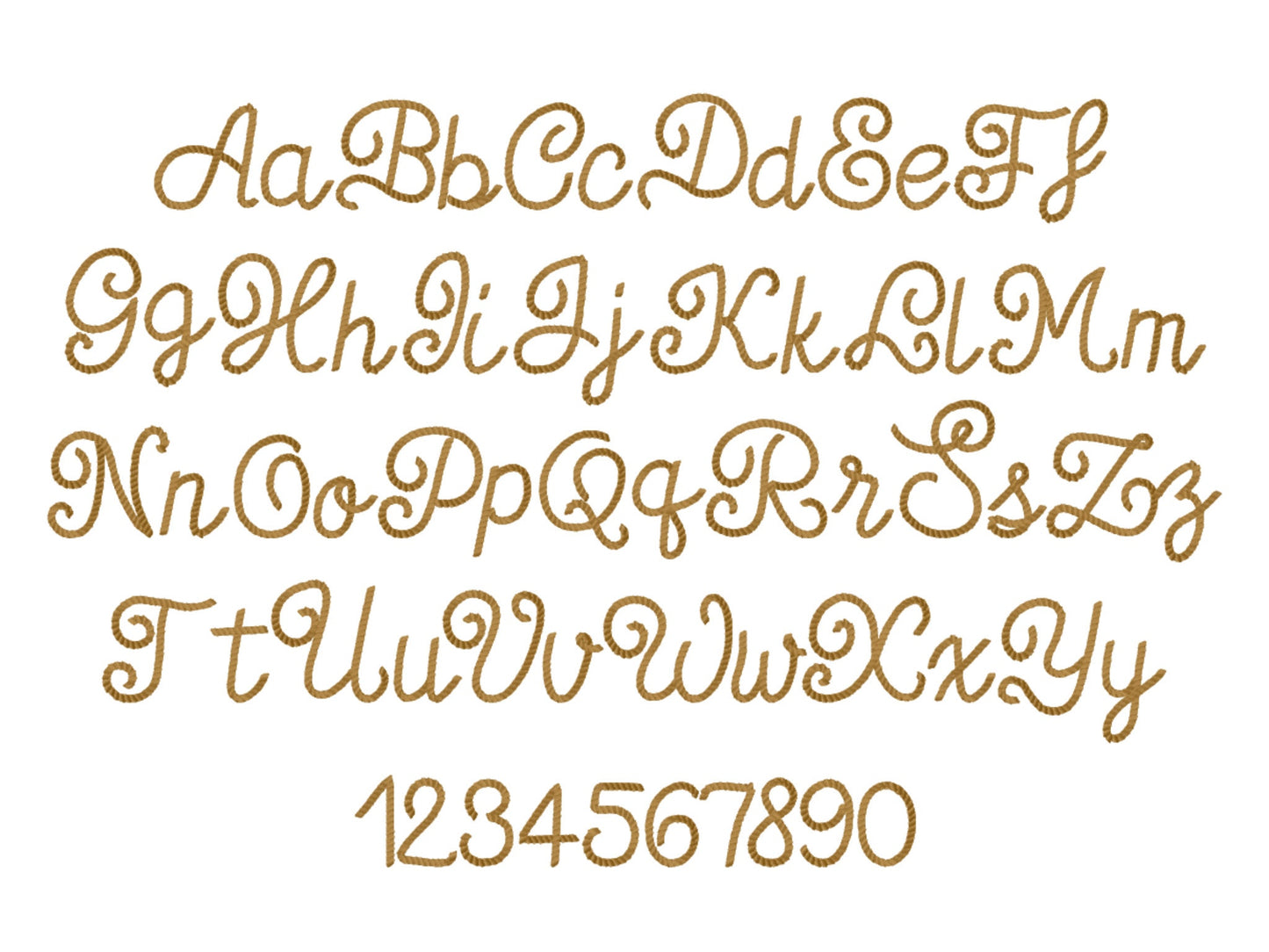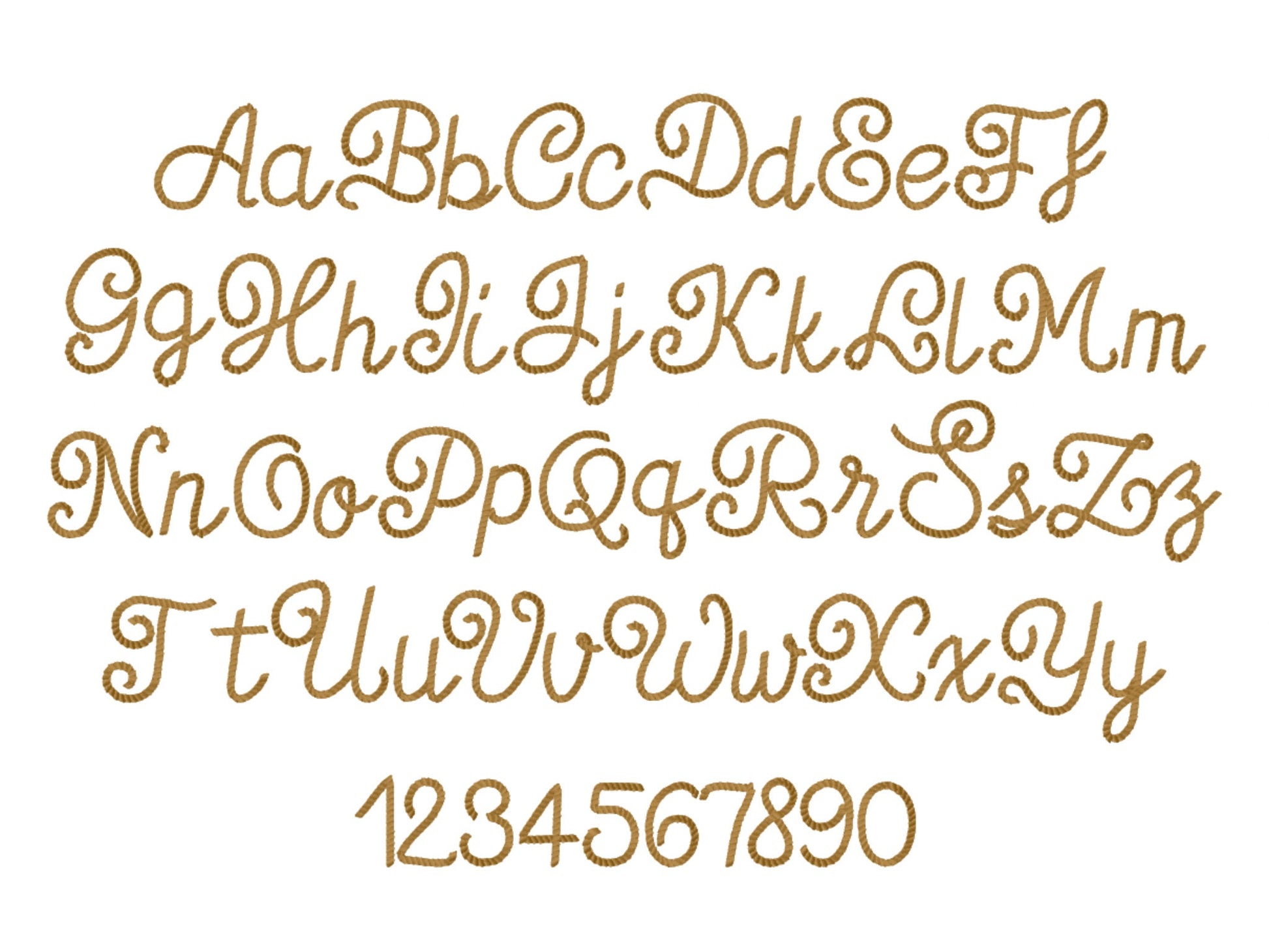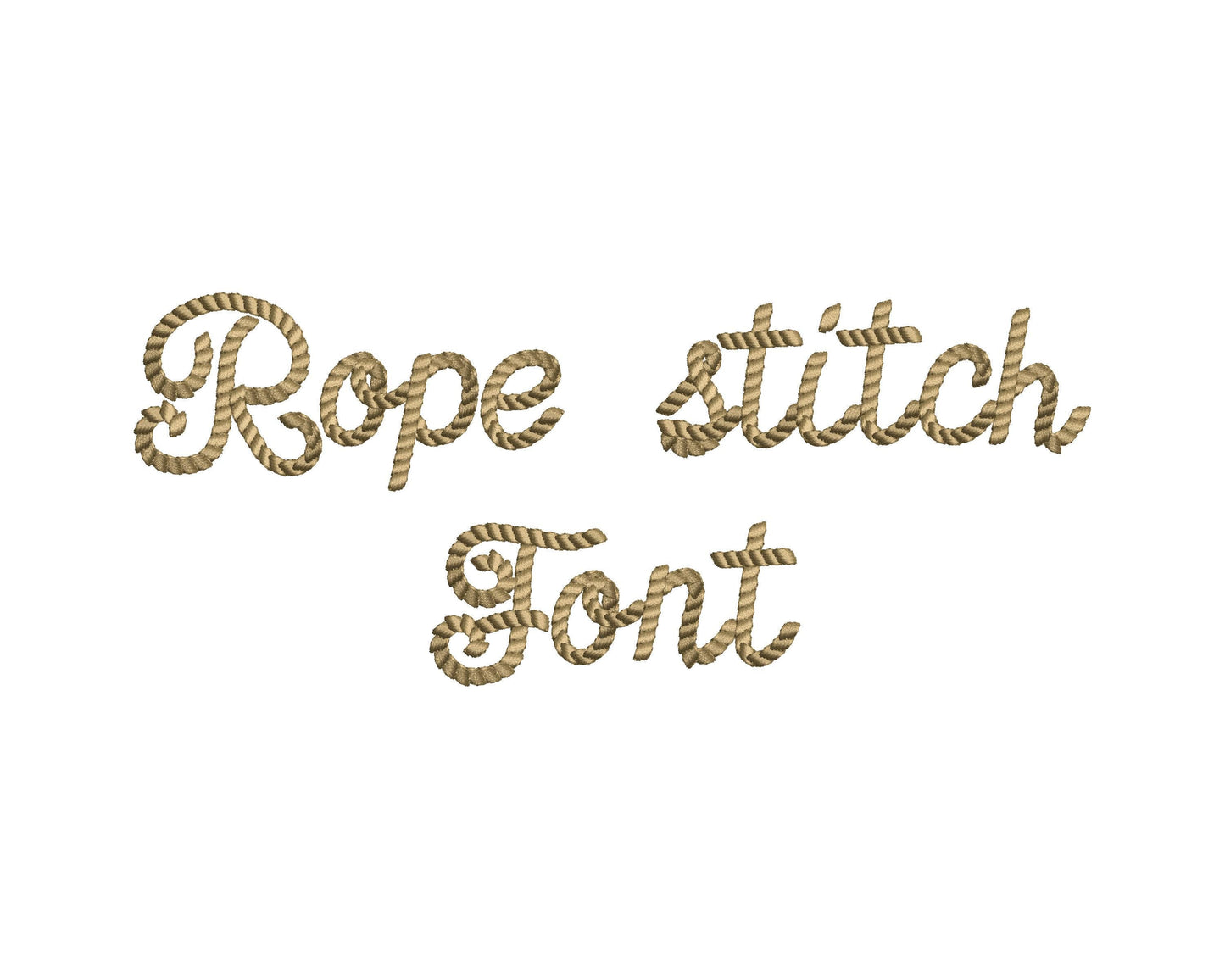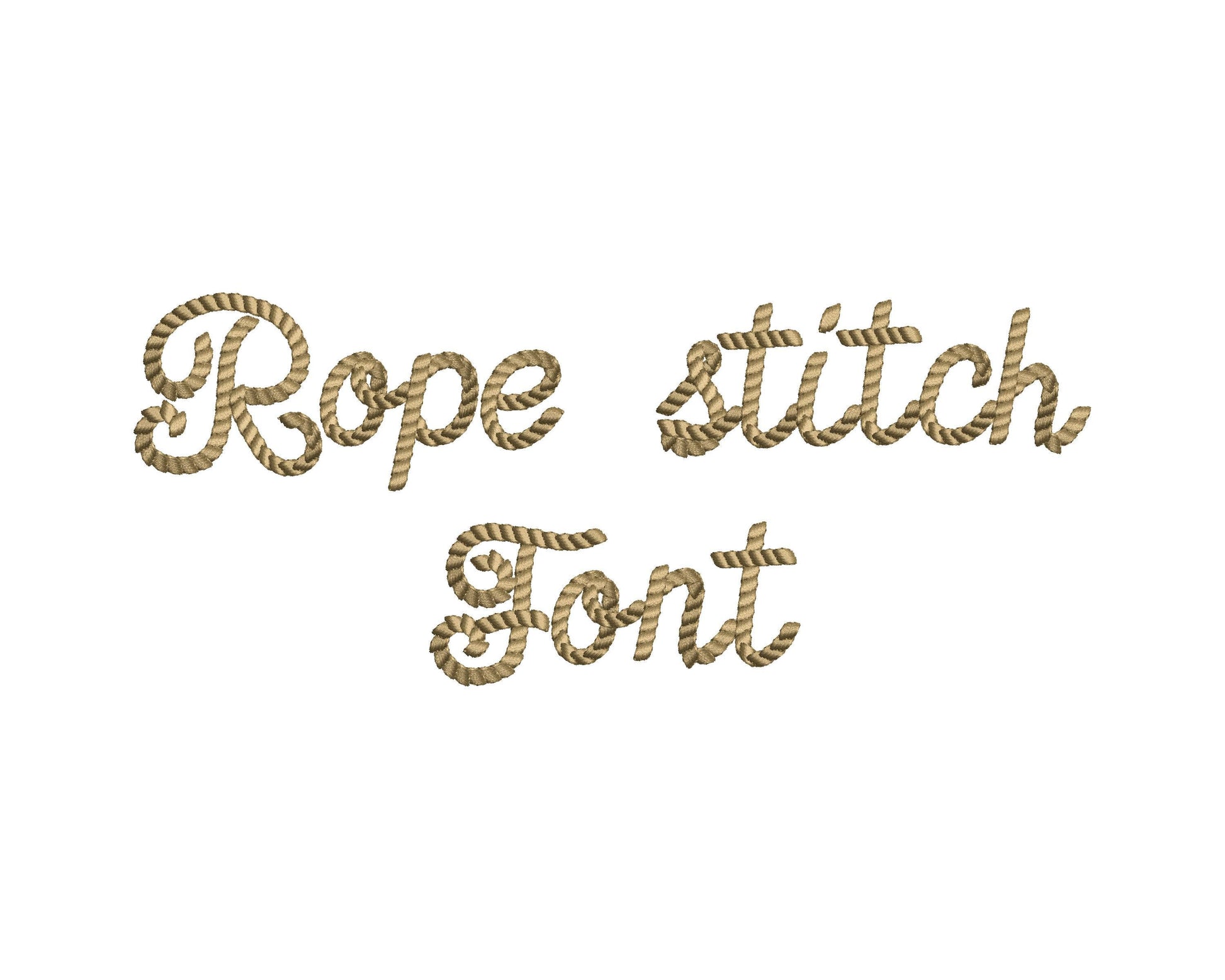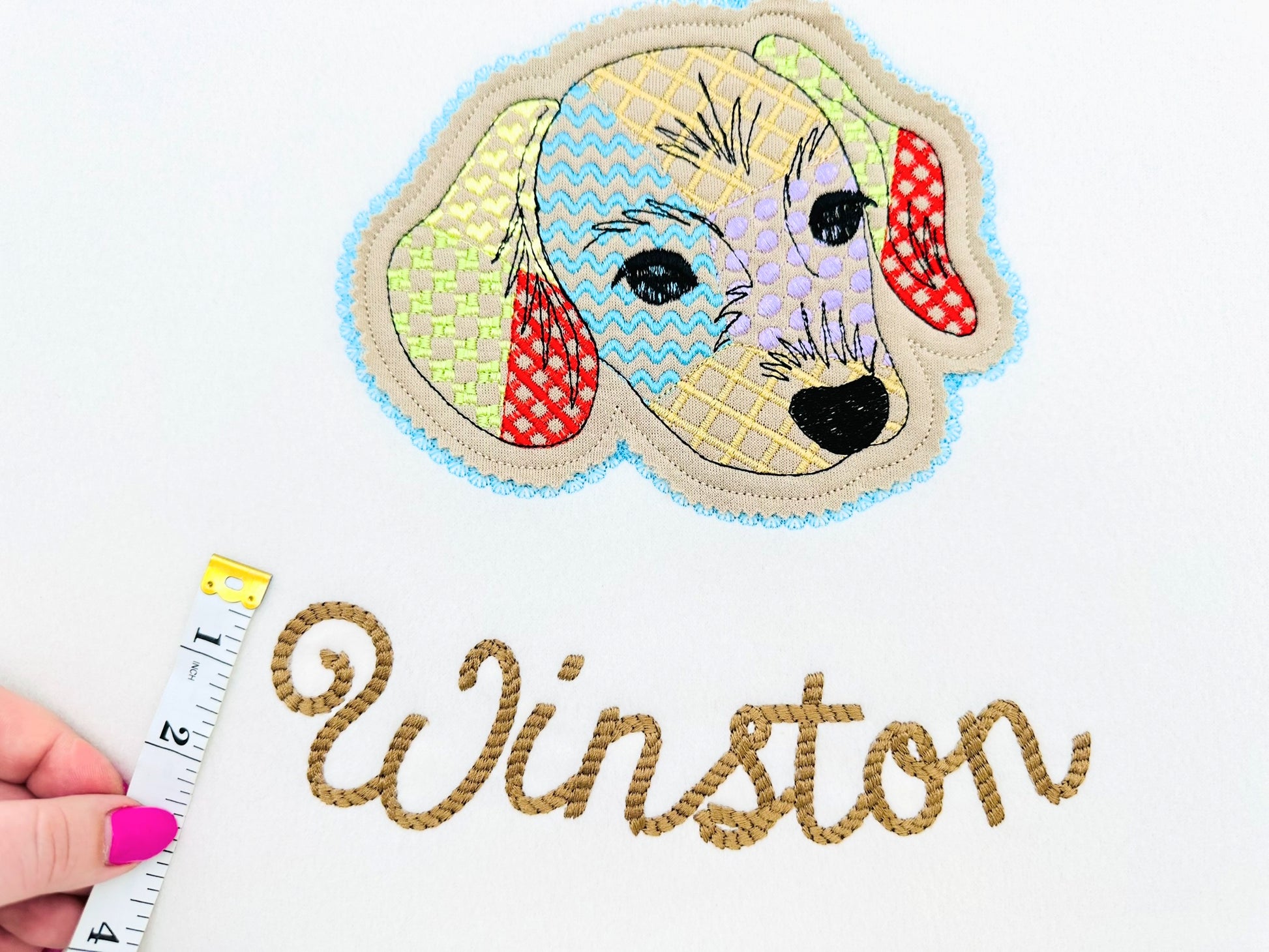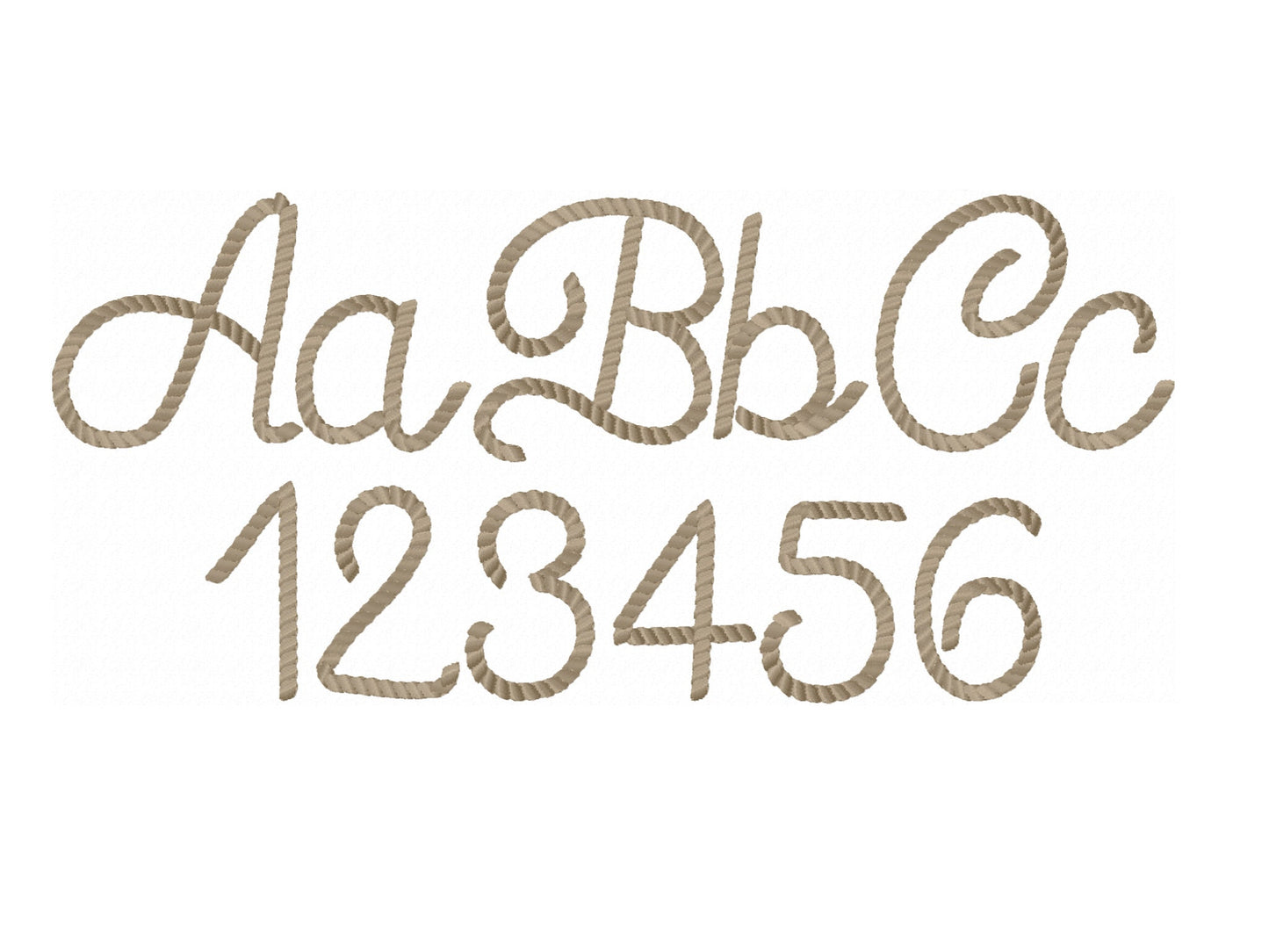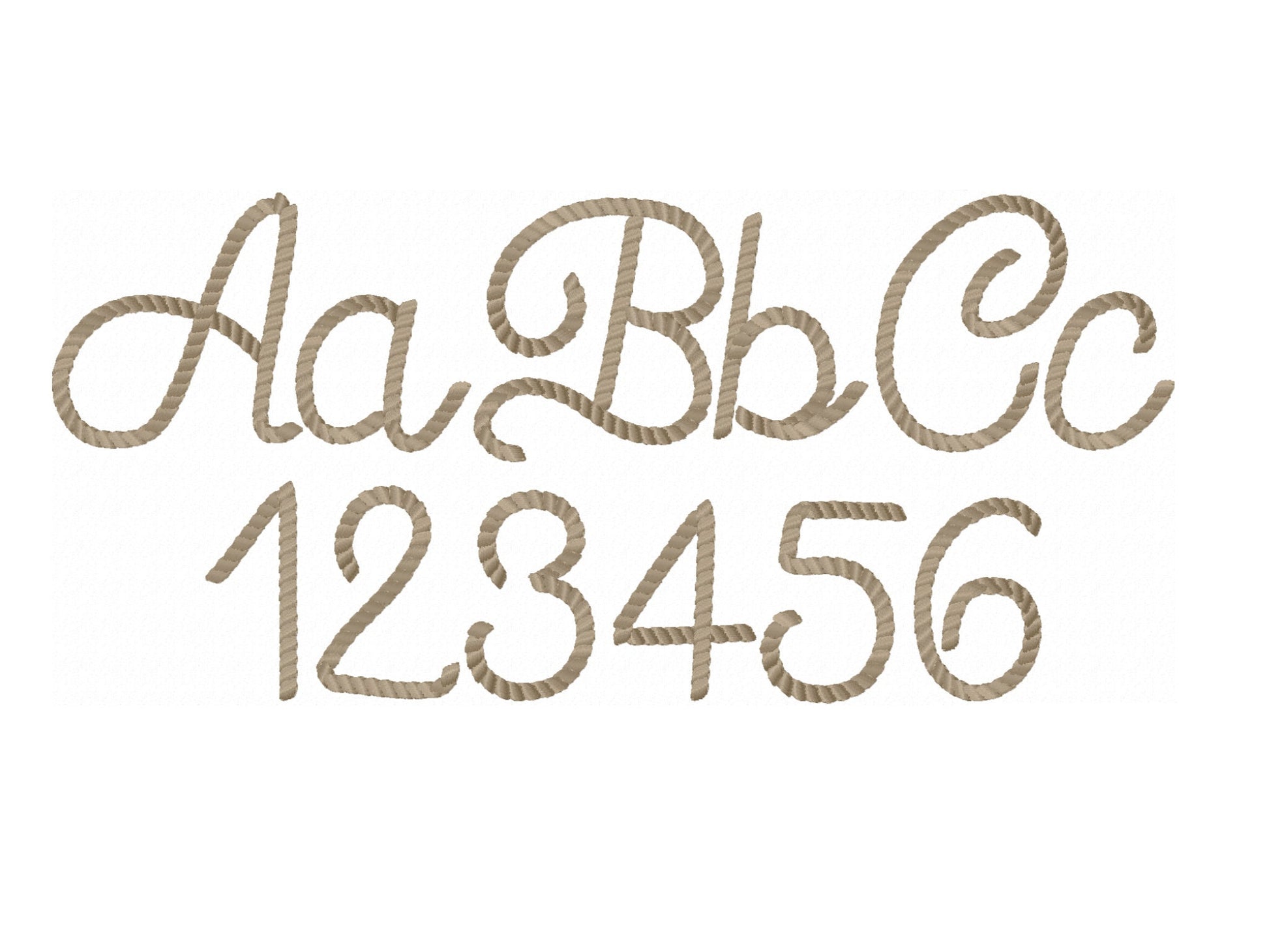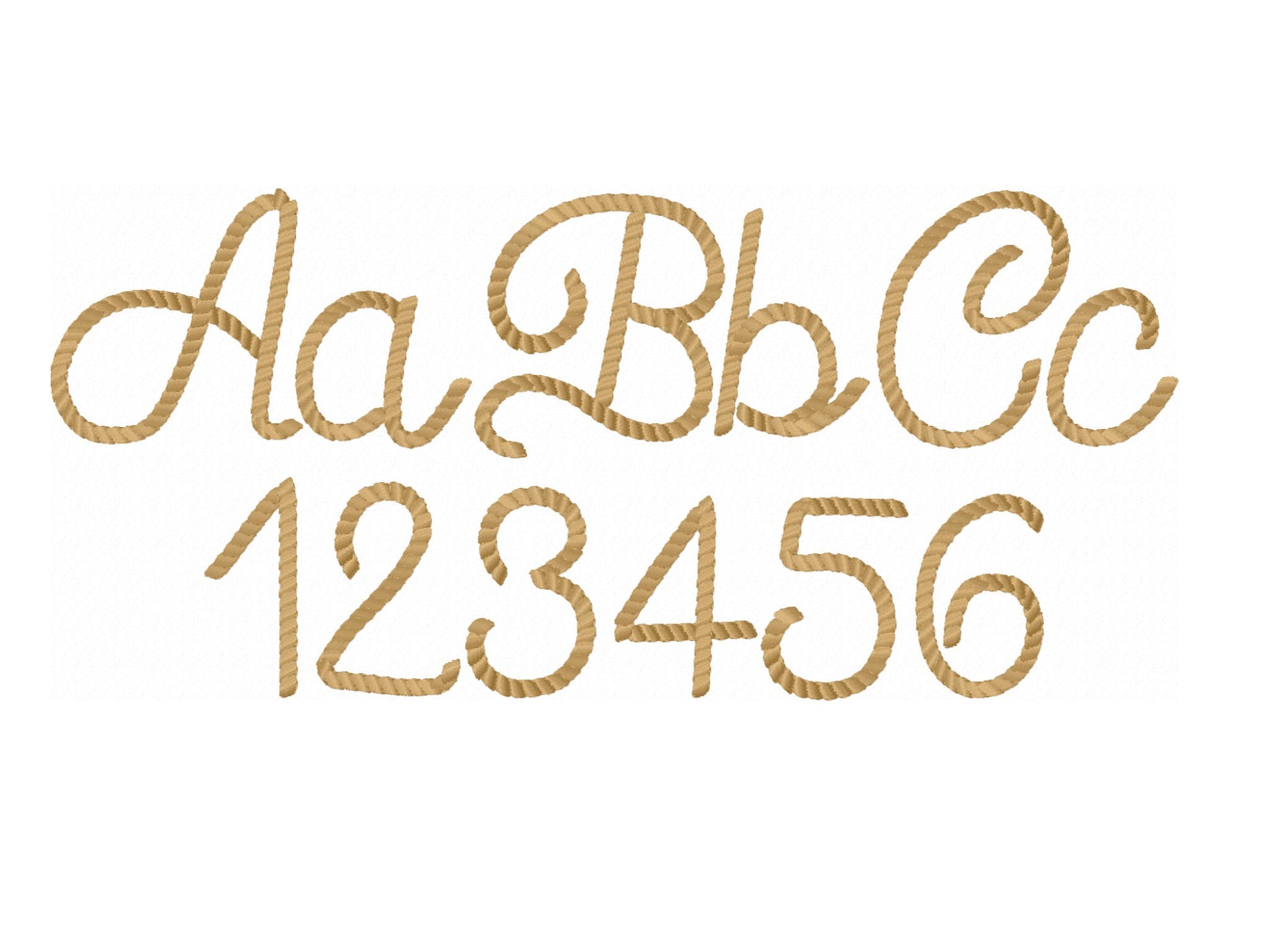
Rope Stitch Handwritten Font
A western rope font with cord-like letters, for cowboy and rodeo names on shirts, caps and bags.
Uppercase and lowercase letters and numbers in six sizes: 1, 1.3, 1.6, 2, 2.5 and 3 inches.
• Western rope font
• Uppercase, lowercase, numbers 0-9
• 6 sizes, 1 to 3 in